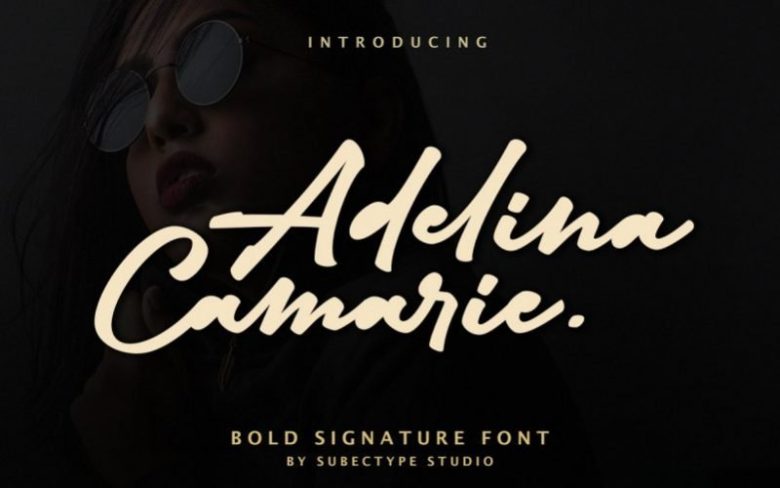
Adelina Camarine Bold Signature Font
Adelina Camarie’ is a Bold Signature Font script with a natural & stylish flow. This collection of scripts is perfect for personal branding. It was made with the intention to be used for your personal branding. But, this works well for many applications. Everything from personal branding, photography signature, advertising could benefit from this collection of this bold signature fonts.